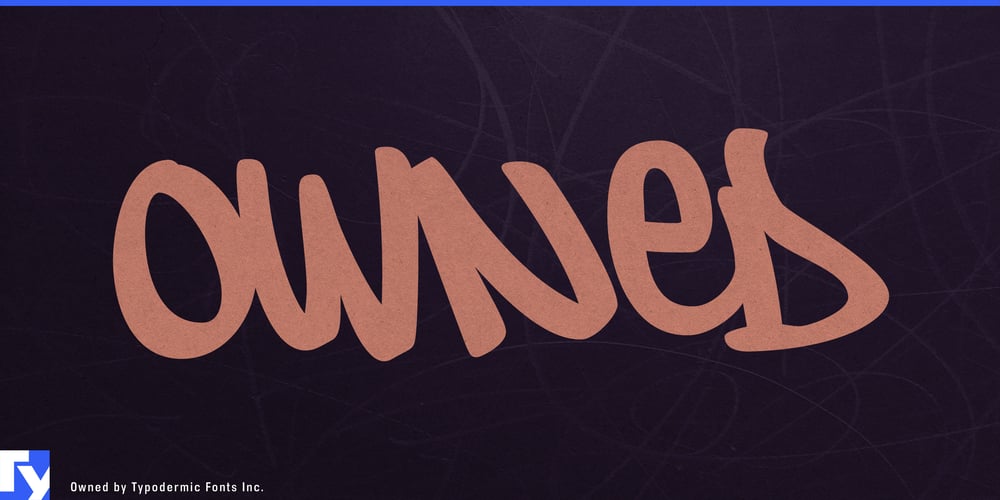
Owned Font Family was designed by Ray Larabie and published by Typodermic. Owned contains 2 styles and family package options. Owned: the typeface that brings the raw energy of the streets to your designs. This Typodermic Fonts creation captures the essence of authentic marker graffiti, transforming digital spaces into urban canvases pulsing with life and urgency.At its core, Owned is a masterclass in controlled chaos. The typeface’s pragmatic ligatures don’t just connect letters—they tell stories of hasty scrawls and urgent messages. Each character bears the marks of a hand in motion, with varying stroke weights and angles that mimic the unpredictable flow of a marker across rough surfaces. In headlines and large-format designs, Owned truly comes into its own. Its bold strokes command attention, making it ideal for posters, album covers, and branded apparel that demand an edgy, streetwise aesthetic. The typeface’s inherent sense of movement and urgency makes it particularly effective in dynamic contexts—think music festival promotions, urban event announcements, or street art-inspired branding campaigns.But Owned isn’t just about raw power—it’s surprisingly versatile. Its range of weights allows for nuanced expression, from the whisper of a tag to the shout of a full-wall piece. This flexibility makes Owned adaptable to various design contexts, from gritty underground flyers to more polished commercial applications that need a touch of street credibility. Moreover, Owned speaks a global language. Supporting a vast array of Latin-based European writing systems, from Afrikaans to Zulu, it ensures your message maintains its urban edge across linguistic boundaries. It’s the perfect tool for international brands looking to infuse their global communications with local street flavor.Owned is more than a typeface—it’s an attitude. It’s for designers who aren’t afraid to push boundaries, who understand that true impact comes from authenticity and raw expression. Get Owned today and let your designs claim their territory in the urban jungle of modern visual communication.